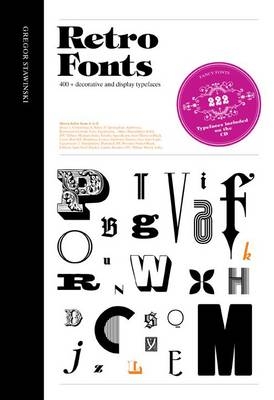
Retro Fonts
A compilation of over 400 of the best retro fonts from 1830 to the end of the 20th century. It features both familiar fonts and lesser known examples ripe for rediscovery. It is suitable for graphic designers and typographers.
Retro Fonts is a fantastic compilation of over 400 of the best retro fonts from 1830 to the end of the 20th century. The fonts are presented in the style of old type specimen books as alphabets with sample words/phrases, shown opposite classic examples of the fonts in use in their historical context. Arranged chronologically into eight sections representing different stylistic eras, each with an introduction discussing the typography of that era, the fonts range from Art Deco, Bauhaus and Swiss through to Sixties, Disco and Punk. Featuring both familiar fonts and lesser-known examples ripe for rediscovery, this is a unique source of inspiration for all graphic designers and typographers. The accompanying CD contains 222 copyright-free fonts.
Introduction Typefaces 1. Grunderzeit and Gold Rush/Historicism 2. Fin de Siecle and Simplicissimus/Art Nouveau/Jugenstil and Japonism 3. Cinema, Jazz and Bob Cuts/Art Deco and Plakatstil 4. Tschichold and Bauhaus/Elementary Typography and Constructivism 5. Cult of Personality and Popular Reception/The Typography of Tradition 6. Petticoat and Rock'n'Roll/Organic Design and Calligraphic Style 7. Economic Miracle and Moon Landing/Swiss Typography and the Space Age 8. Flower Power and Revolt/Pop and Disco 9. Walkman, Rubik's Cube and Gen X/Postmodern and Punk